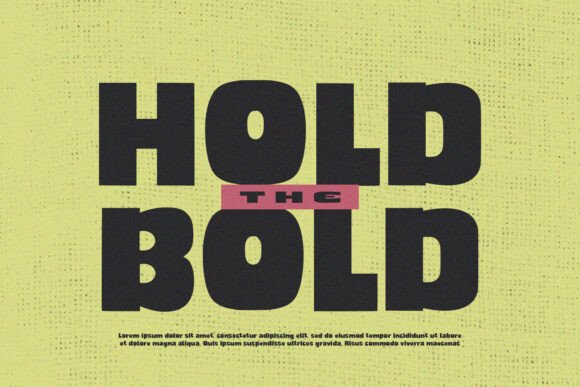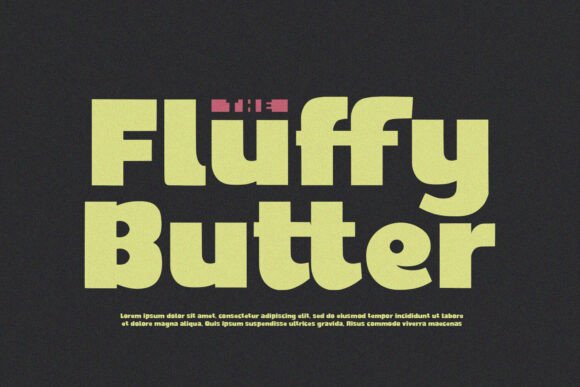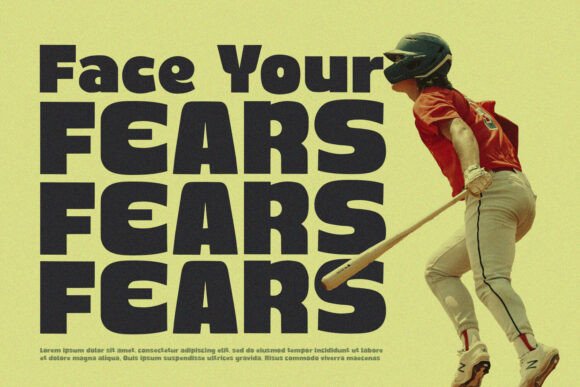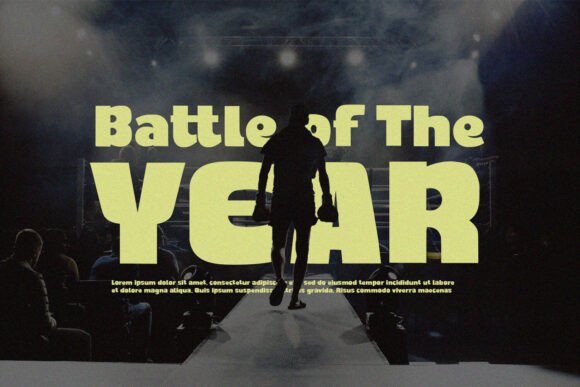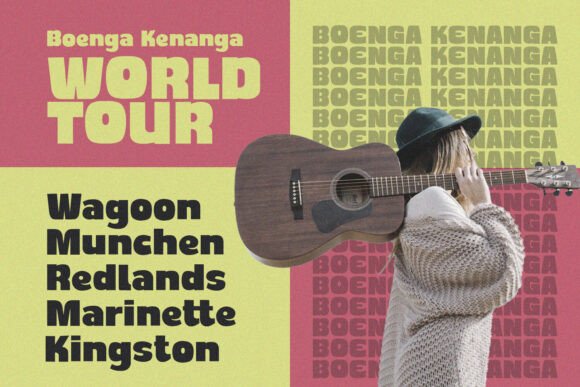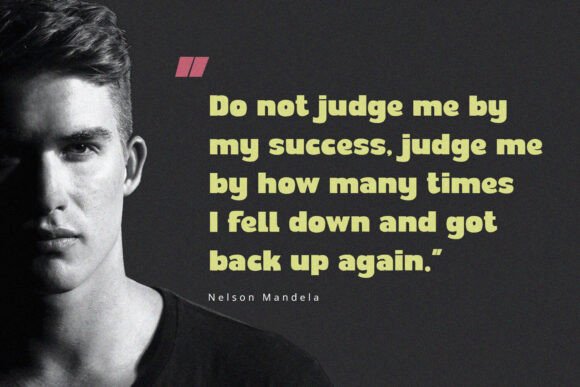
Brizy Font: Elevate Your Designs with Elegance and Modernity
In the realm of typography, fonts play a pivotal role in shaping the visual identity of a brand or design project. Among the myriad of fonts available, Brizy Font stands out for its elegant and modern feel, making it an ideal choice for a wide range of design applications. In this article, we’ll delve into the characteristics of Brizy Font, its versatility, and why it has become a go-to for designers and crafters alike.
What is Brizy Font?
Brizy Font is a display sans serif font that exudes sophistication and contemporary style. Its clean lines, balanced proportions, and subtle nuances make it a versatile typeface suitable for various design projects. Whether you’re working on branding, logo design, lettering, or any other visual project, Brizy Font offers the perfect blend of elegance and modernity.
Key Features of Brizy Font
- Elegant and Modern Design: Brizy Font boasts a sleek and modern aesthetic that instantly elevates the visual appeal of any design.
- Versatility: Its sans serif design makes it adaptable to a wide range of projects, from digital platforms to print materials.
- Legibility: Despite its elegant feel, Brizy Font maintains excellent legibility, ensuring that your message is conveyed clearly.
- Customization: The font comes in various weights and styles, offering flexibility for designers to experiment with different looks.
Use Cases for Brizy Font
Brizy Font’s versatility is one of its strongest assets, making it suitable for a multitude of design projects. Here are some of the ideal use cases:
- Branding: Create a lasting impression with Brizy Font by incorporating it into your brand’s logo or marketing materials.
- Logo Design: Its modern and elegant feel makes it perfect for logos that need to stand out yet convey a sense of sophistication.
- Lettering and Logotype: Brizy Font’s unique characteristics make it an excellent choice for custom lettering and logotype designs.
- Clothing and Apparel: Design stylish and eye-catching clothing lines, including t-shirts, hoodies, and more.
- Print Media: Enhance your posters, magazines, and packaging with a touch of elegance and modernity.
- Photography and Special Events: Use Brizy Font to add a professional and stylish touch to your photography projects or event branding.
Why Choose Brizy Font?
In a world where design trends are constantly evolving, Brizy Font offers a timeless solution that can adapt to current and future design needs. Its elegance, modernity, and versatility make it an invaluable asset for designers looking to create impactful and memorable designs.
Moreover, Brizy Font is designed to be user-friendly, making it accessible for both professional designers and hobbyists. Its wide range of applications ensures that you can use it across different projects, making it a cost-effective solution for your design needs.
Brizy Font is more than just a typeface; it’s a design tool that can elevate your projects to new heights. Its elegant and modern feel, combined with its versatility and legibility, makes it an ideal choice for a wide array of design applications. Whether you’re a professional designer or a crafter, Brizy Font offers the perfect blend of style and functionality to bring your creative visions to life.